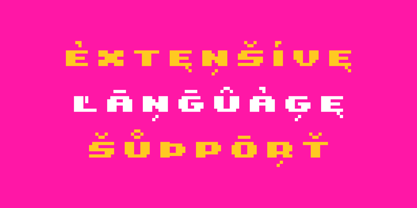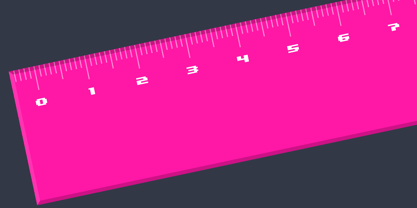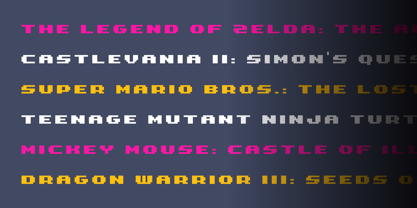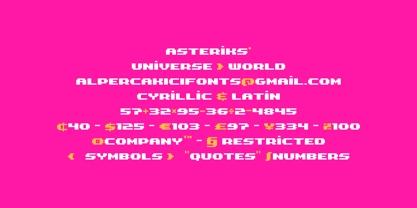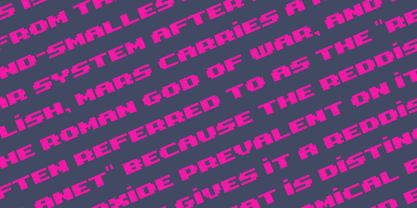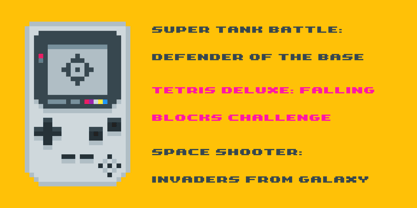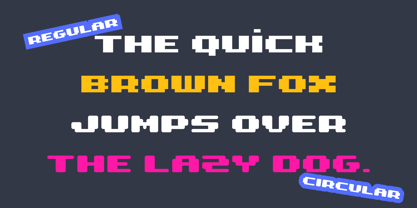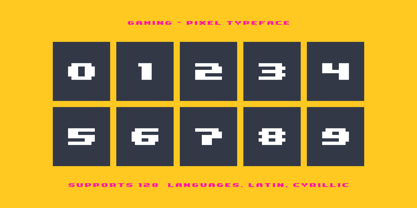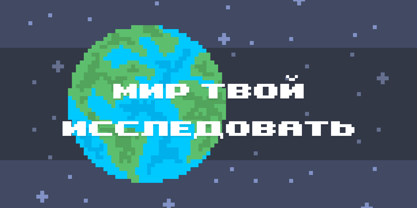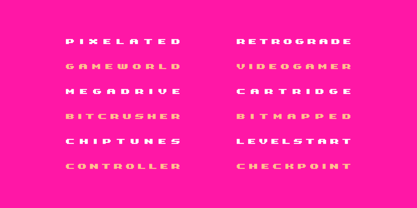
Gaming
The Gaming Font Family was designed by Alper Çakıcı and published by AlperCakici. Gaming contains 52 styles and family package options. More about this family
Gaming is a bold, expressive pixel typeface built for modern digital aesthetics and retro-inspired design. Combining wide proportions with a structured grid-based construction, it captures the spirit of classic arcade typography while delivering the flexibility needed for contemporary creative work. Designed with versatility in mind, Gaming features an extensive family of styles ranging from clean and geometric to textured and experimental. From the sharp precision of Angular to the smooth softness of Rounded, and from solid Regular cuts to decorative variants like Outline, Inline, Pencil, Rimmed, Noise, and Rough, the typeface adapts effortlessly across a wide range of visual moods. The Circular and Rounded subfamilies introduce a softer, more approachable tone, while Eroded, Noise, and Rough styles add a distressed, dynamic edge—perfect for projects that demand character and depth. Italic companions across the family enhance typographic hierarchy and motion, making Gaming ideal for UI, branding, posters, game interfaces, and digital storytelling. With support for over 120 languages, Gaming offers broad international usability, covering Latin-based scripts used across Europe, Africa, and beyond. This makes it a powerful choice for global projects that require both stylistic impact and linguistic reach. Whether you're designing for games, tech branding, esports visuals, or experimental layouts, Gaming delivers a distinctive pixel identity with unmatched variety and creative control.